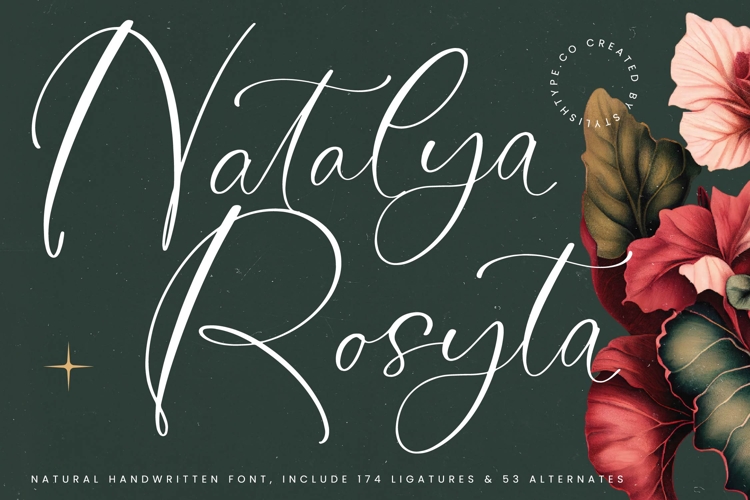
Natalya Rosyta - Natural Handwritten Font
Natalya Rosyta - Natural Handwritten Font is delivered with an impressive library of 174 unique ligatures and 53 stylistic alternates, allowing designers to personalize every word and achieve truly custom typography. These extensive options ensure an authentic handwritten appearance, enabling seamless connection flows and eliminating the repetitive look often associated with digital scripts.